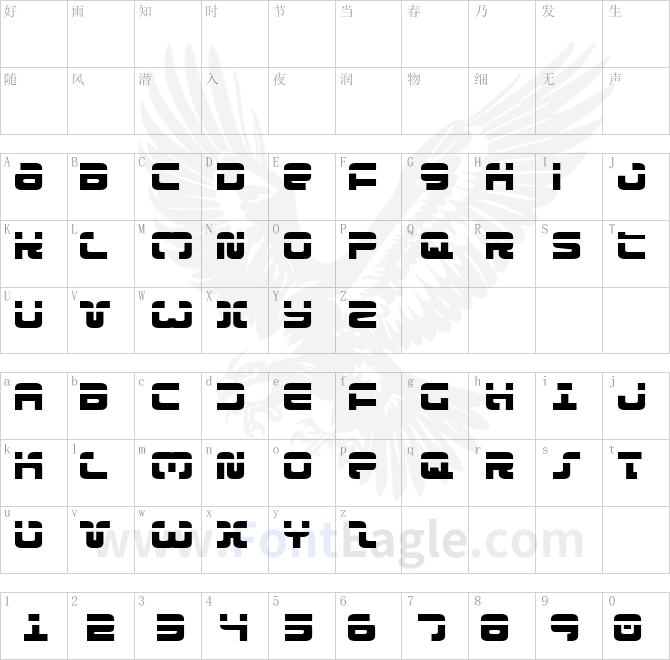
- Font name:Exedore Laser
Exedore-Laser is a great font, widely used in graphic design, single-page menu design, poster design and other fields, and is deeply loved by designers.Exedore-Laser download.